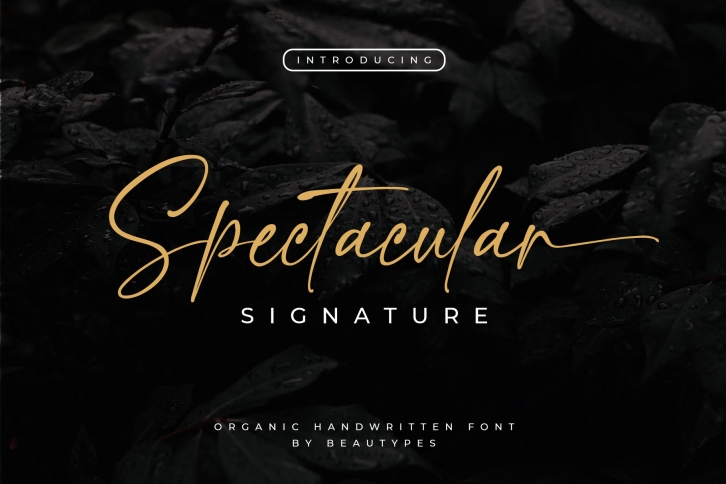
Spectacular Signature is a trendy and unique font with an authentic style. It was designed by BeauTypes and it's a great choice for creative people who need such a font. It was released on December 6, 2021 and the file size is 4.89 MB. Spectacular Signature will add an organic vibe to any design idea!